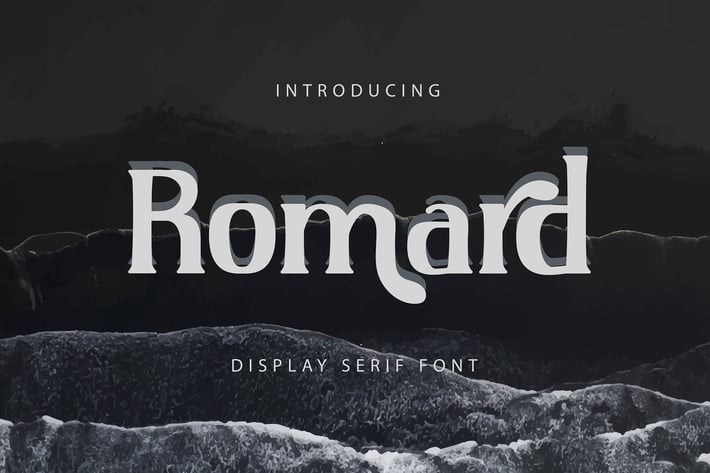
Romard | Display Serif Font
Romard | Display Serif Font with a calligraphy style, So beautiful on invitation like greeting cards, branding materials, business cards, quotes, posters, and more!